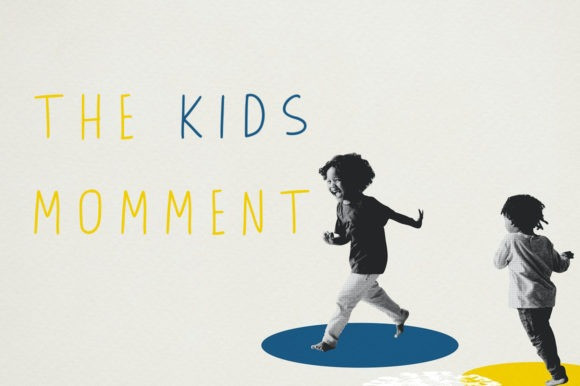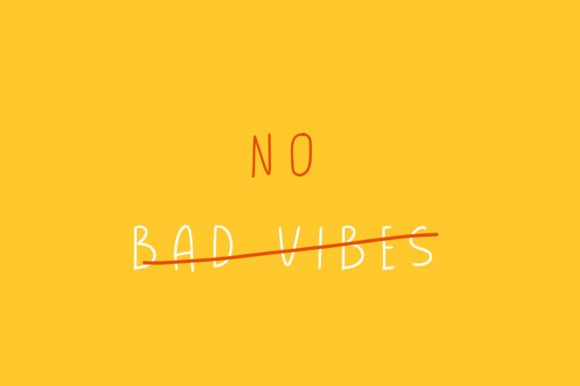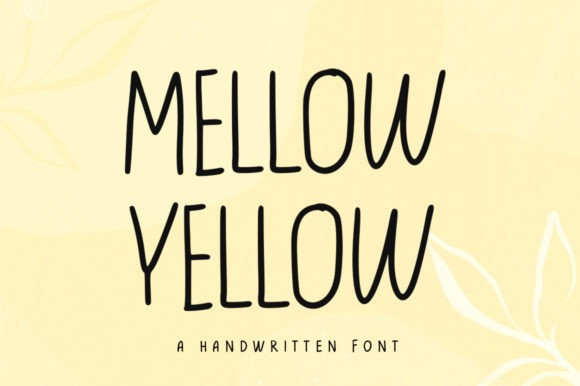
Mellow Yellow Display Font
Yellow Mellow is a cute and tall handwritten font with an adventurous vibe. It will add a unique charm to any design project you wish to create.